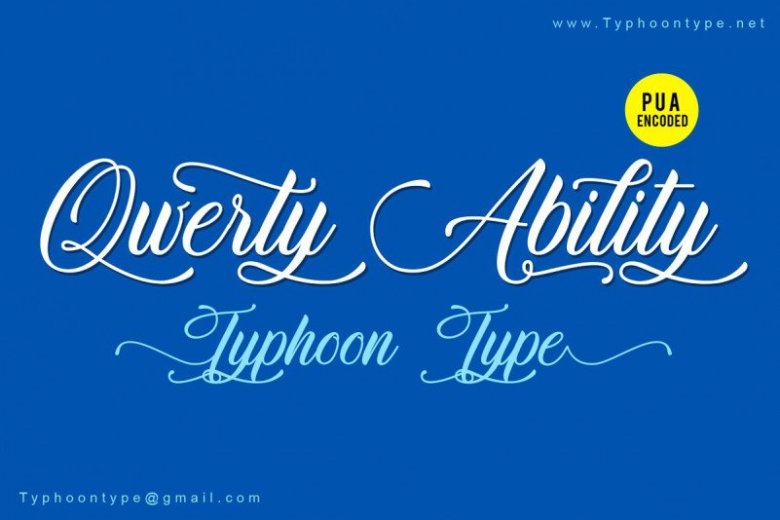
Qwerty Ability Script Font
Hello! Introducing Qwerty Ability Font! Qwerty Ability – A Lovely Script Font is an handwritten script font based on the expression of real handwriting. It’s will work perfectly for fashion, e-commerce brands, trend blogs, wedding boutiques or any business that wants to appear upscale and chic.
Qwerty Ability also Suitable for Logo, greeting cards, quotes, posters, branding, name card, stationary, design title, blog header, art quote, typography, art, modern envelope lettering or book design, happening style like handdrawn design or watercolor design theme, craft design, any DIY project, book title, or any purpose to make your art/design project look pretty and trendy.